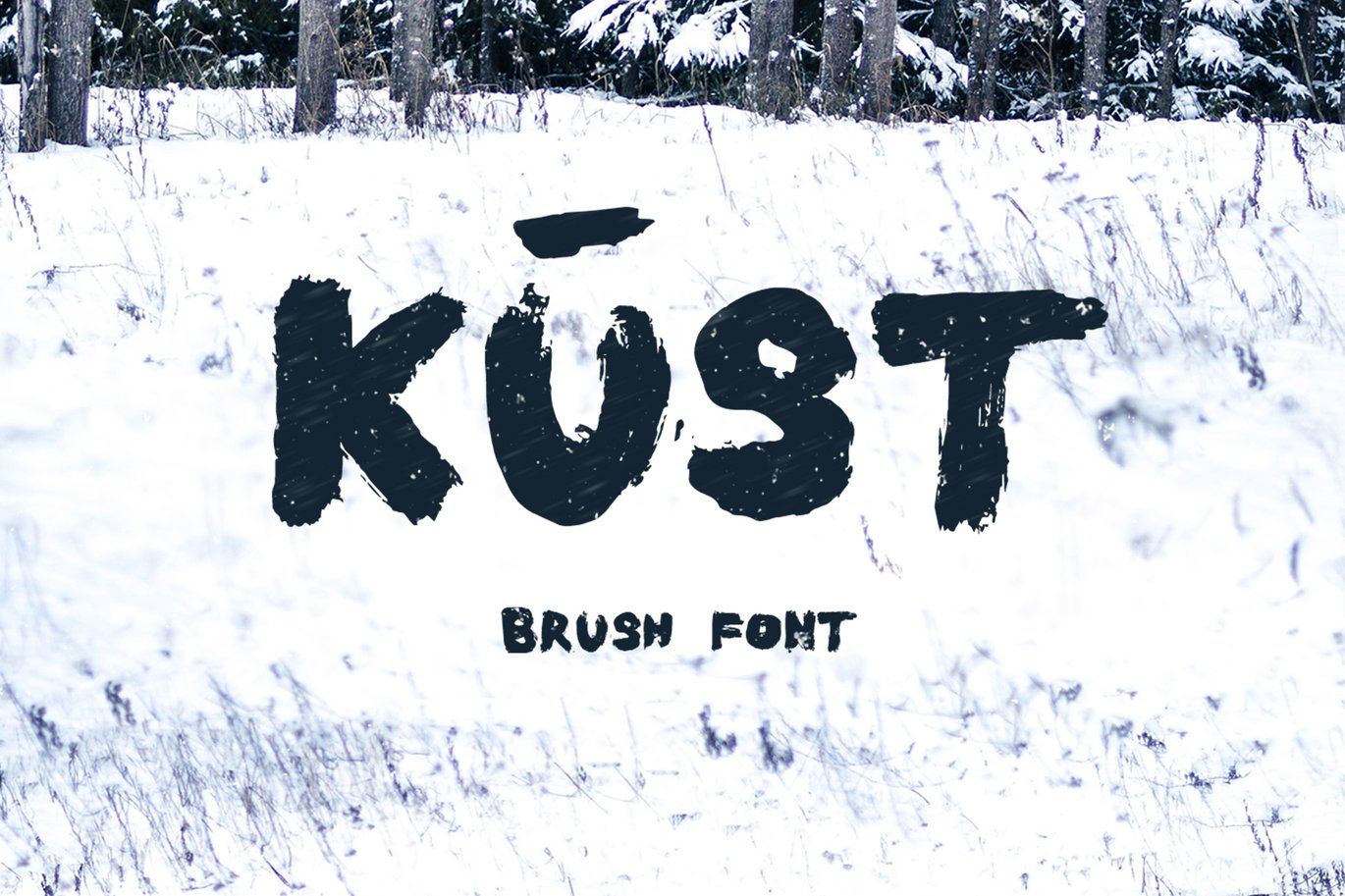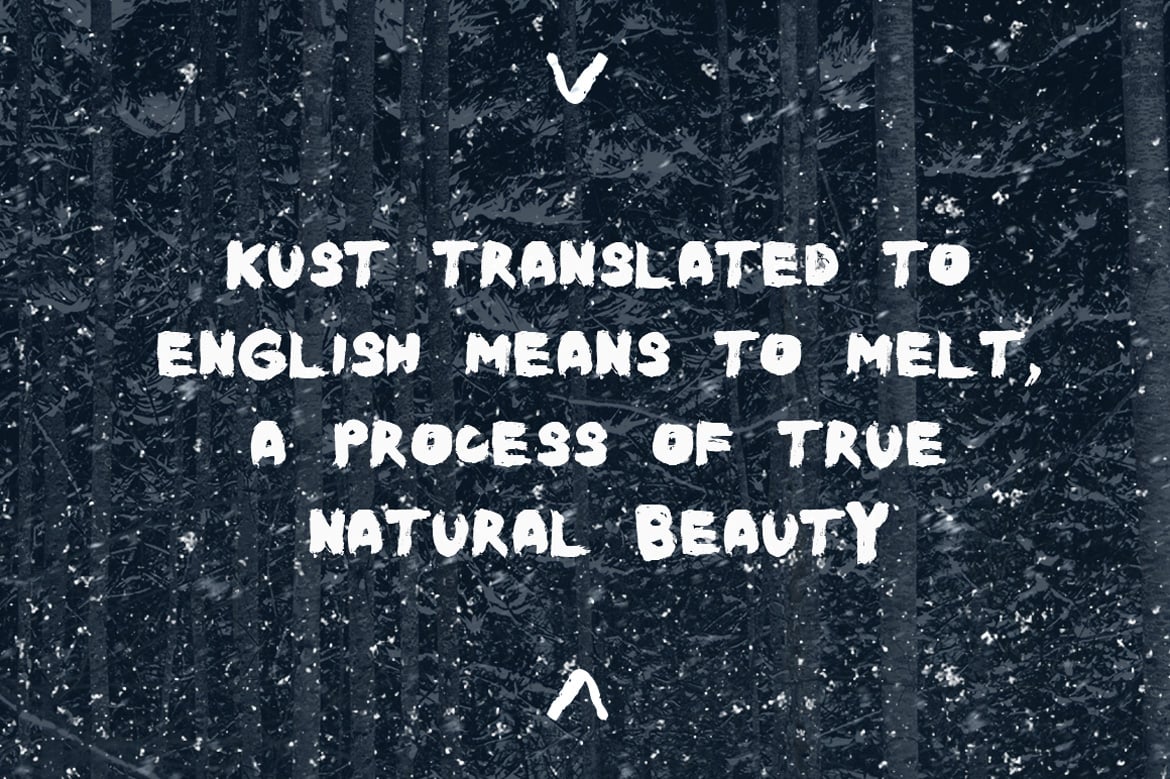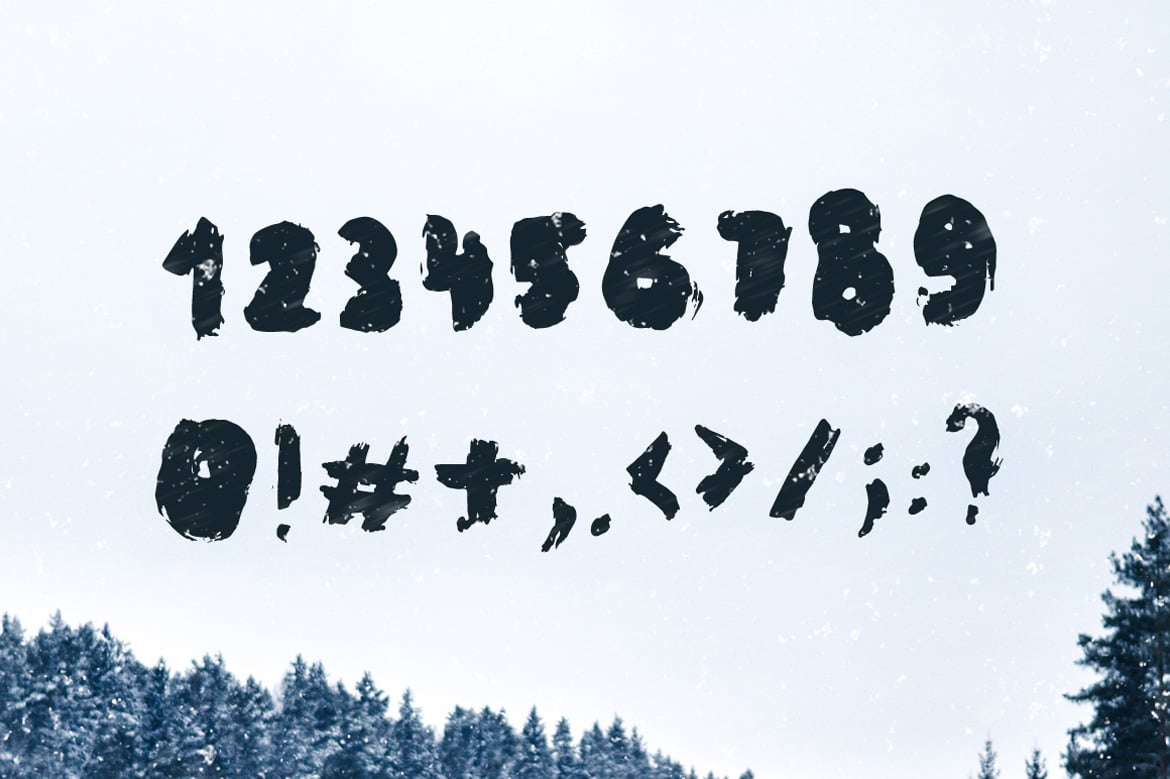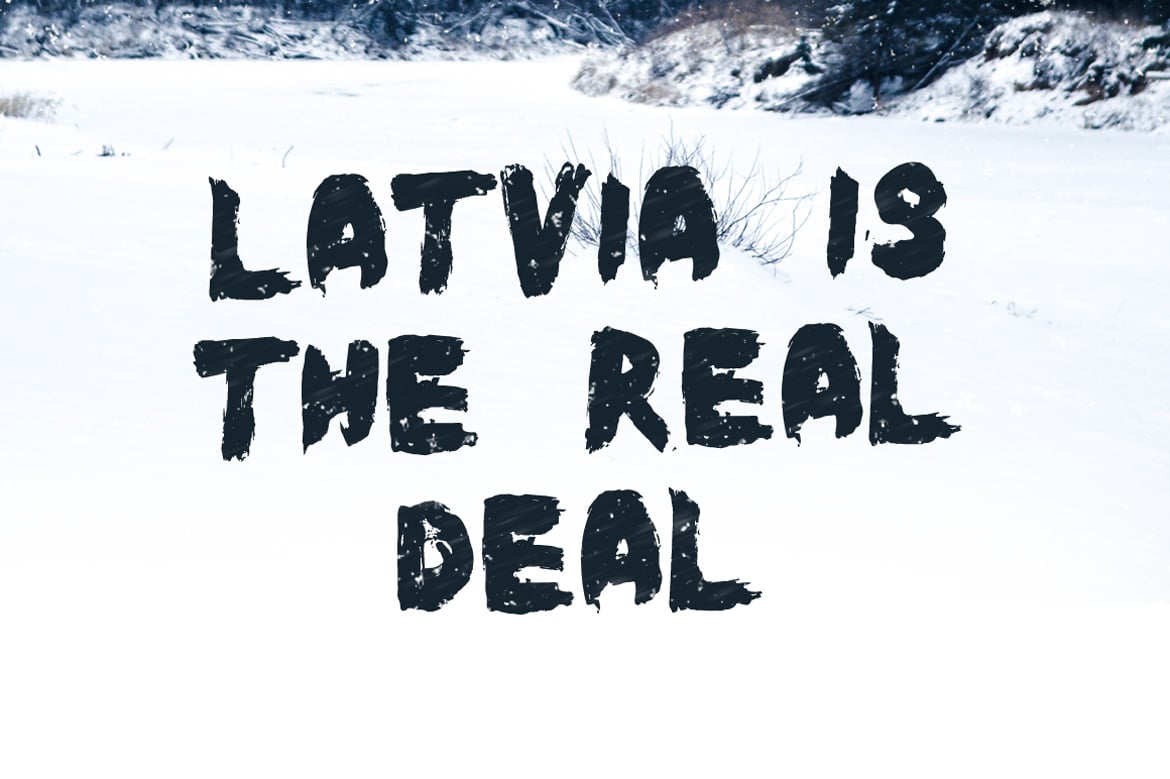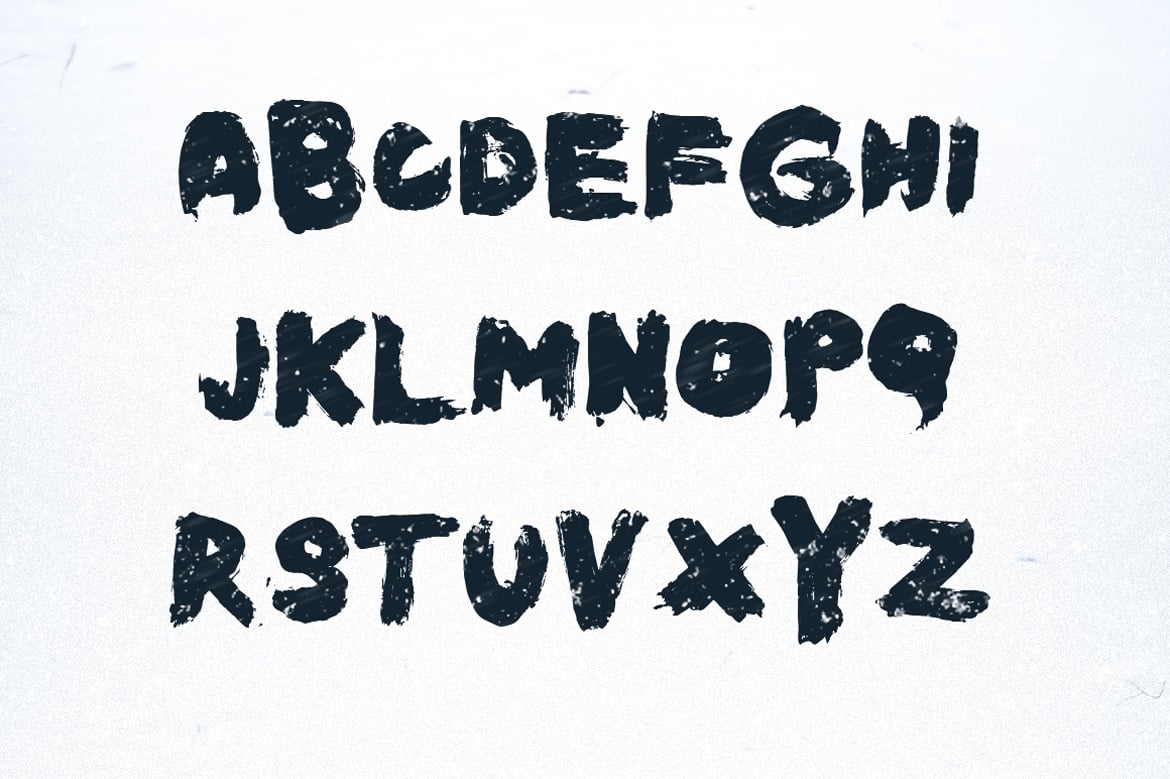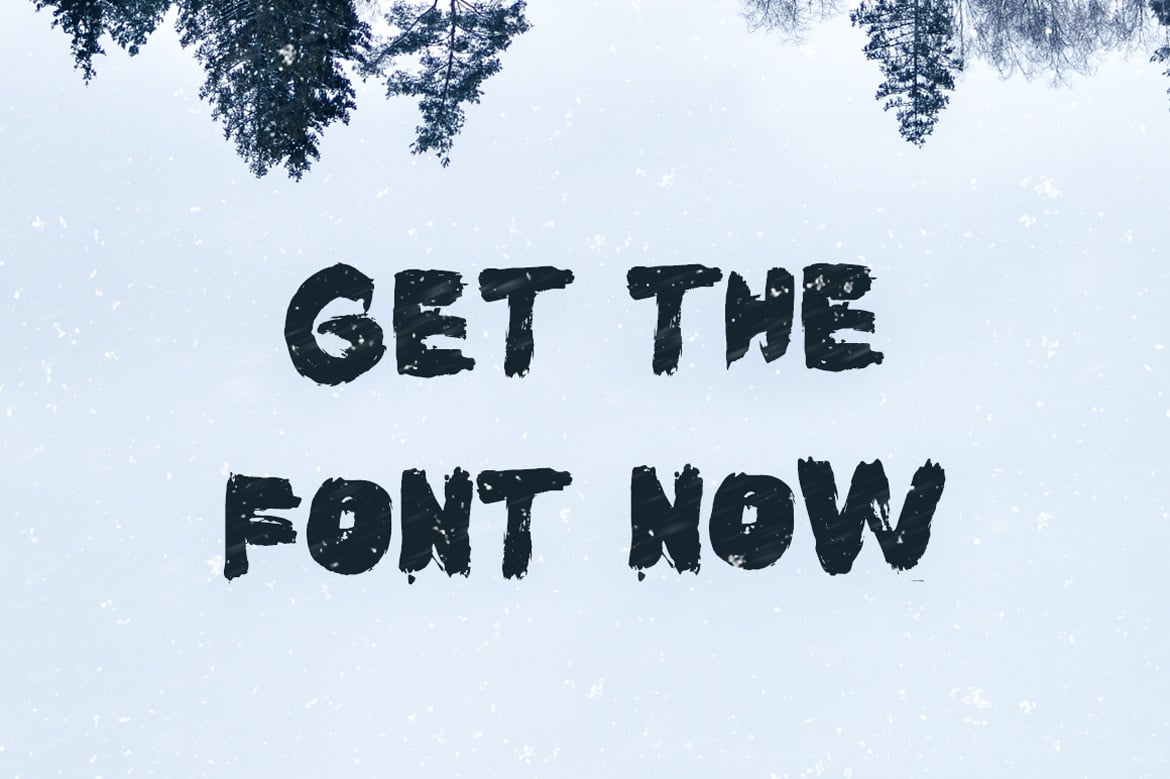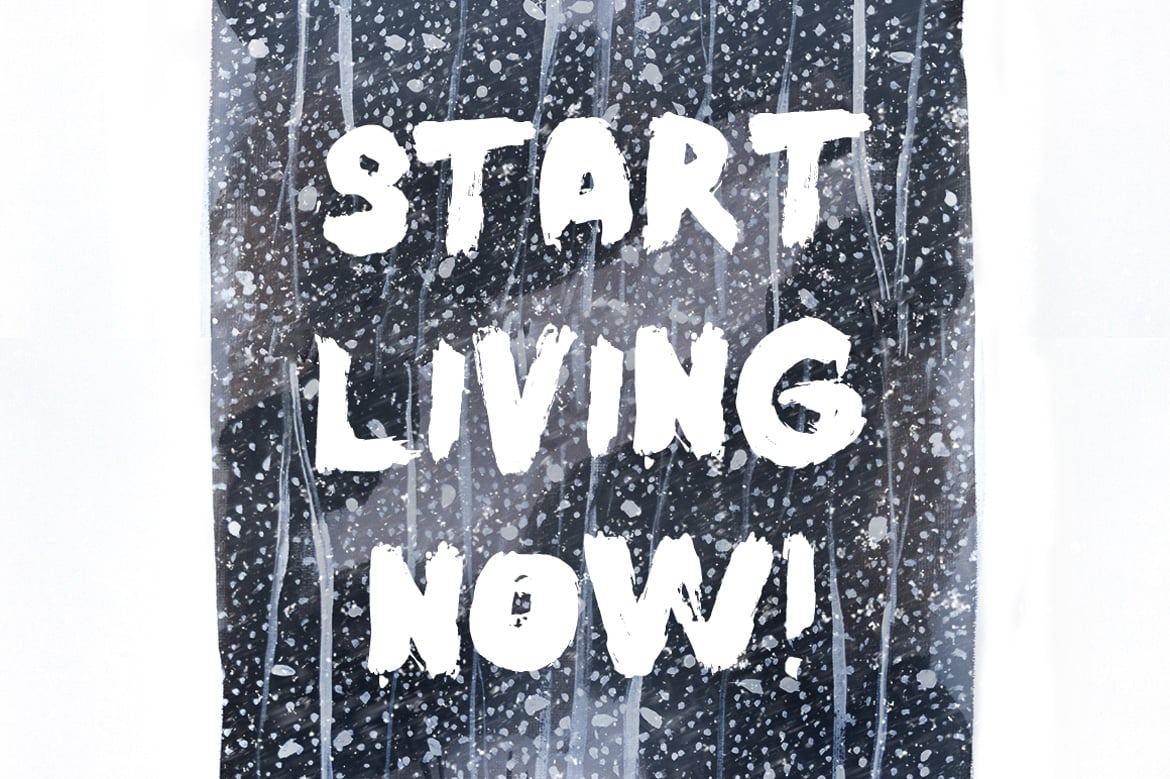
Kust Brush Font
The new Kust font is a handwritten typeface, written by Ieva Mezule, fashion designer nad painter. 80 characters, every letter has a unique structure, with a distorted look. The letters were drawn on hard paper with a thick brush using pure black ink. The presentation was made by images taken by Krisjanis Mezulis, and the painting thats in the middle was painted by Ieva.